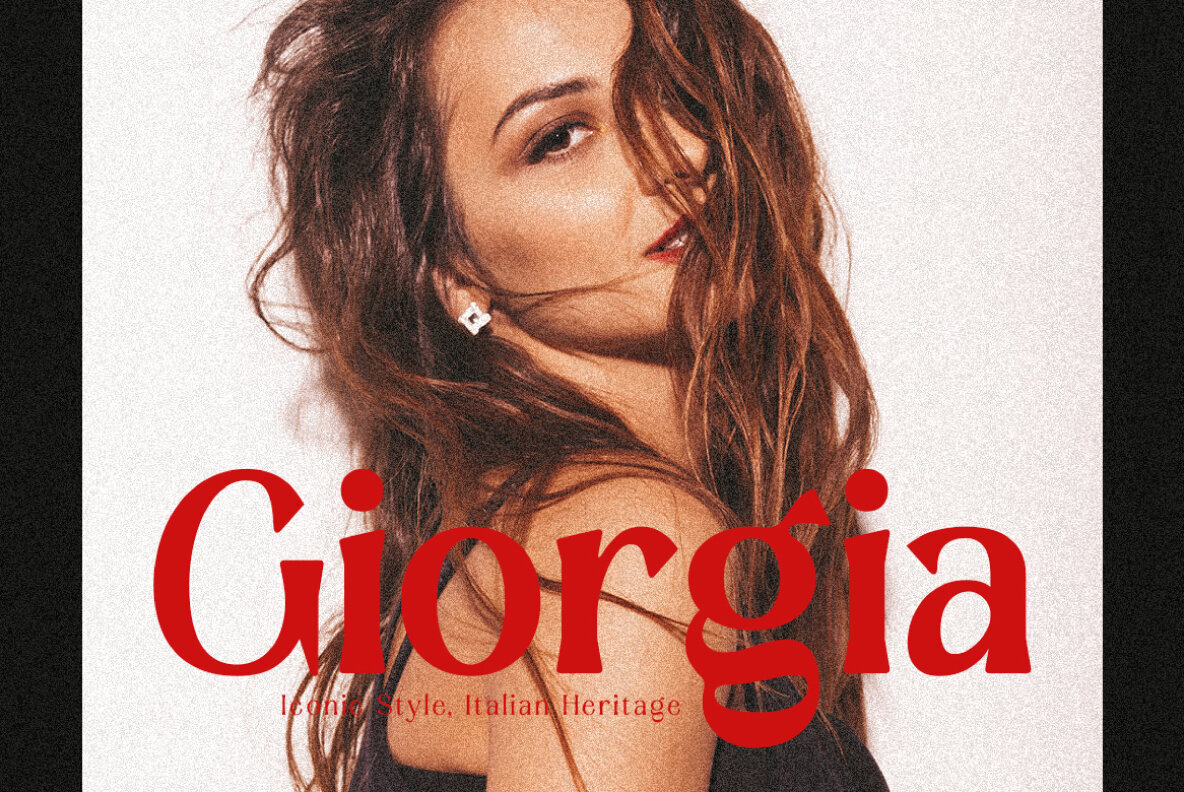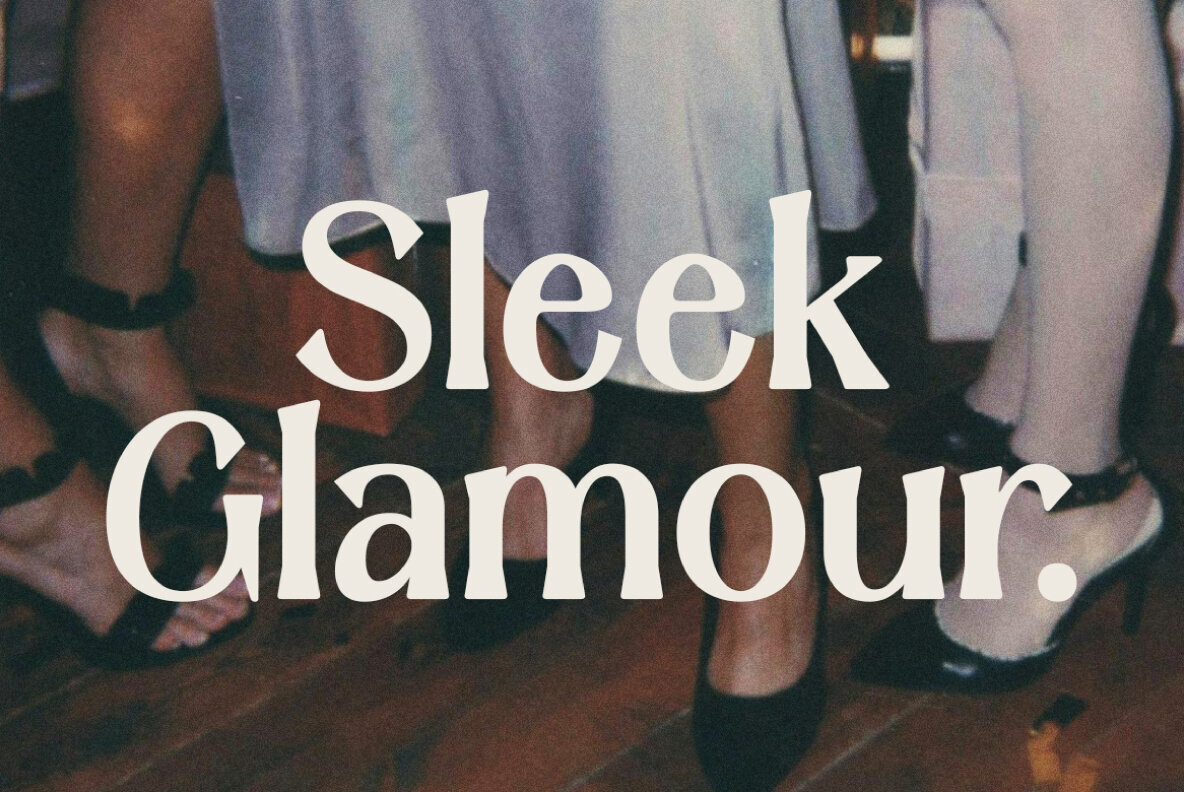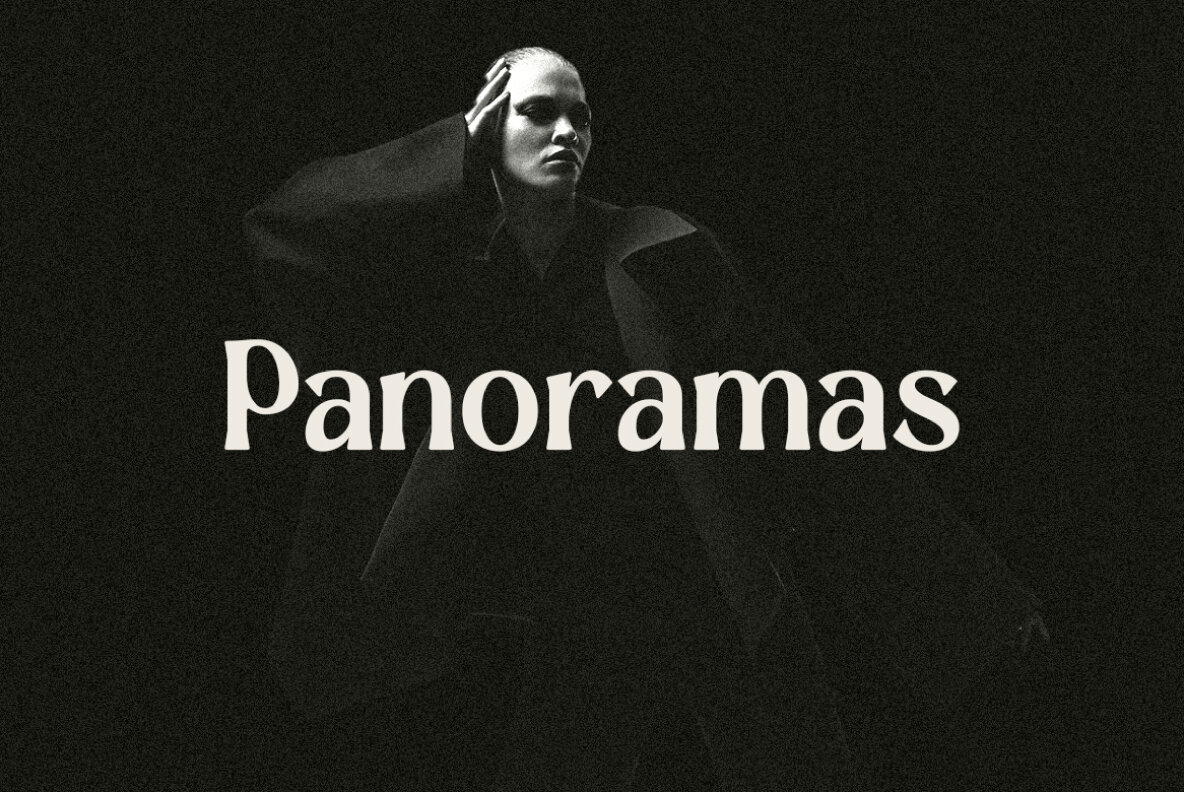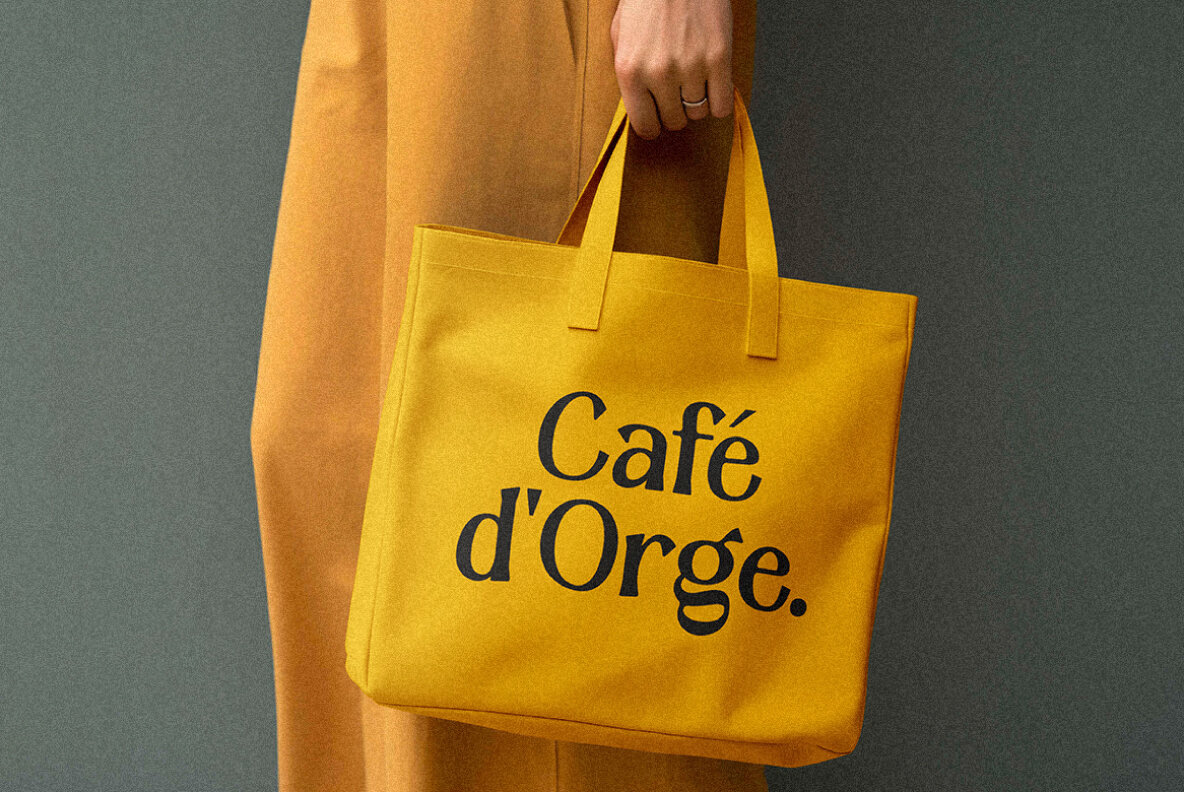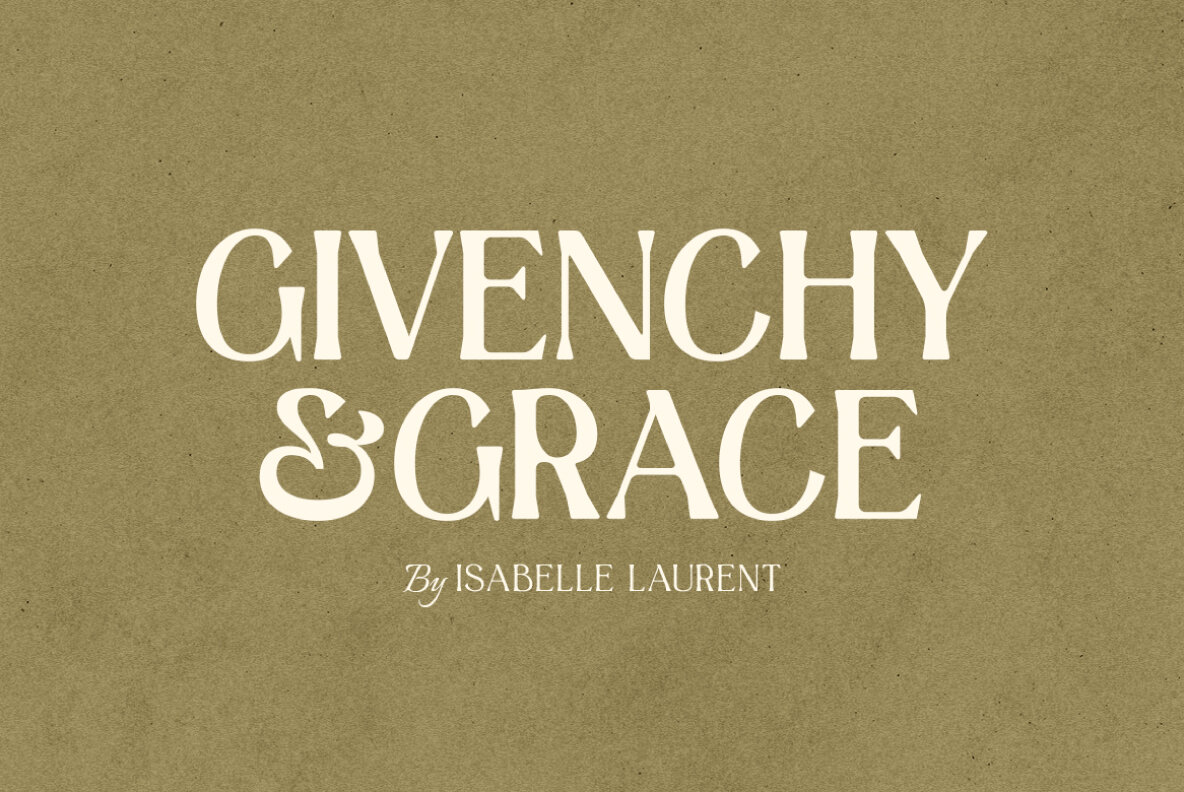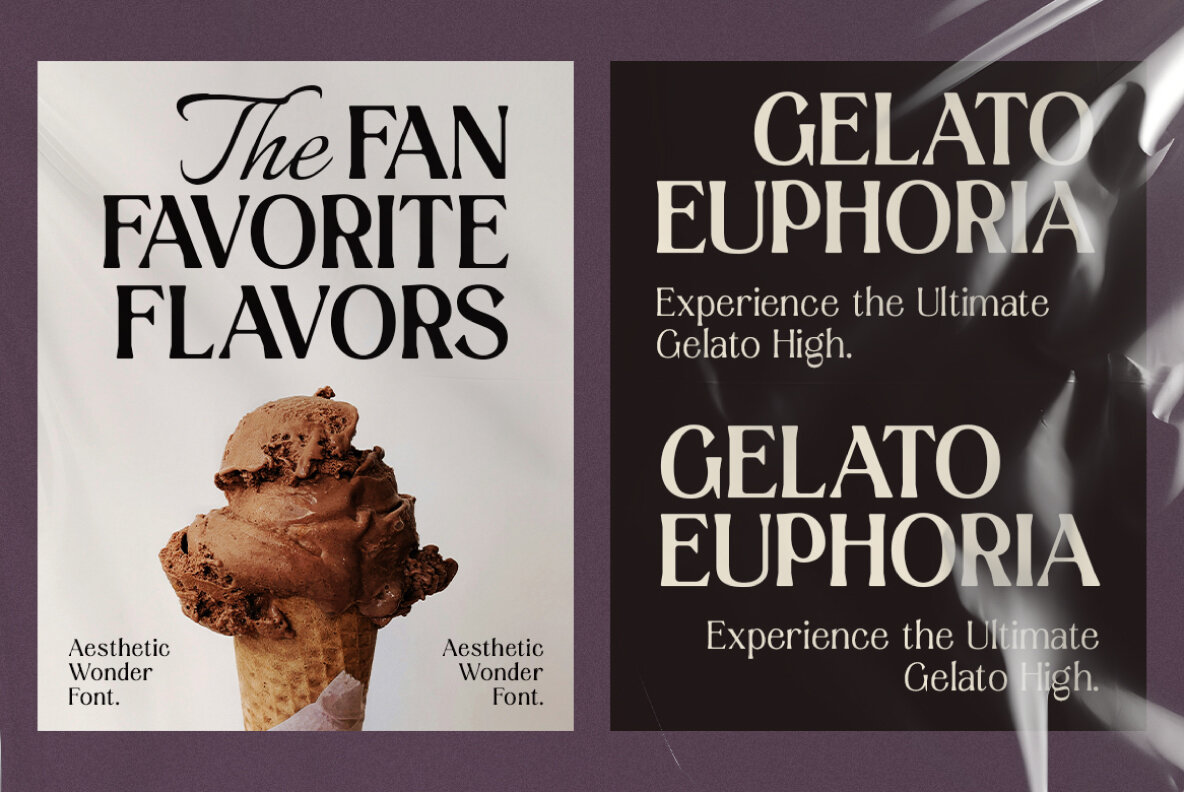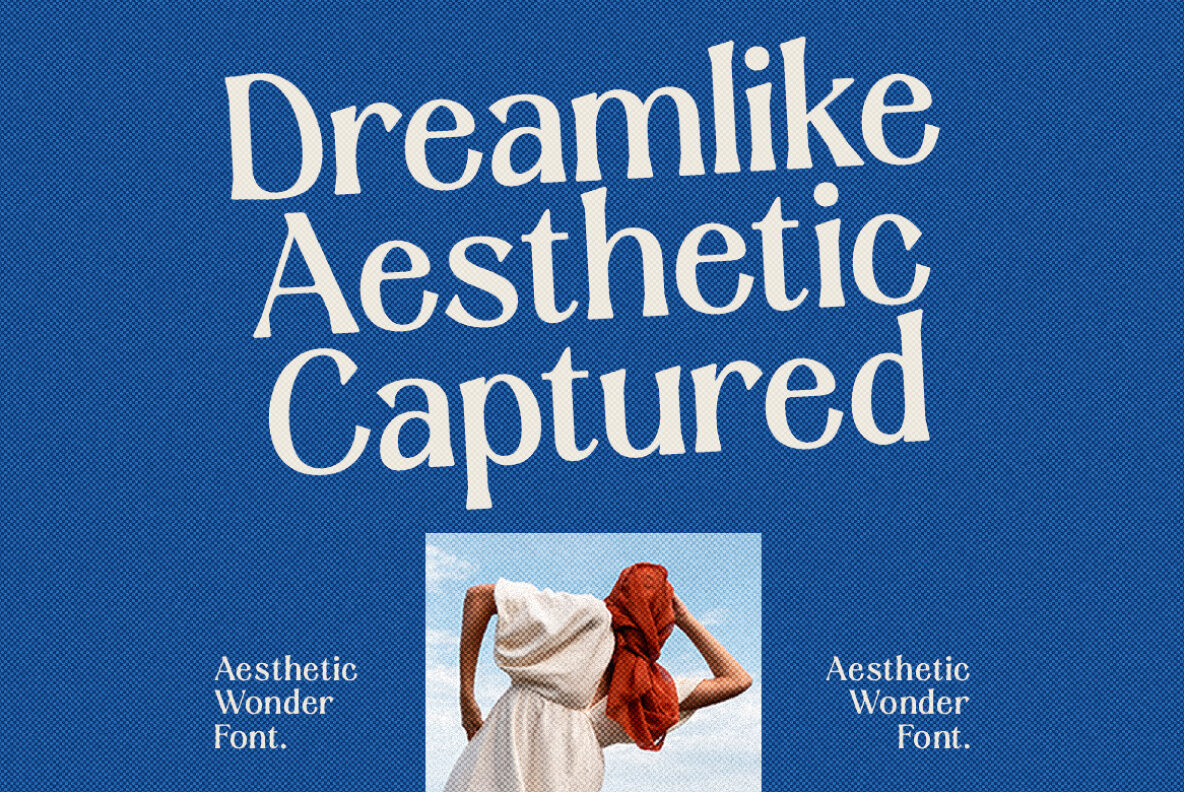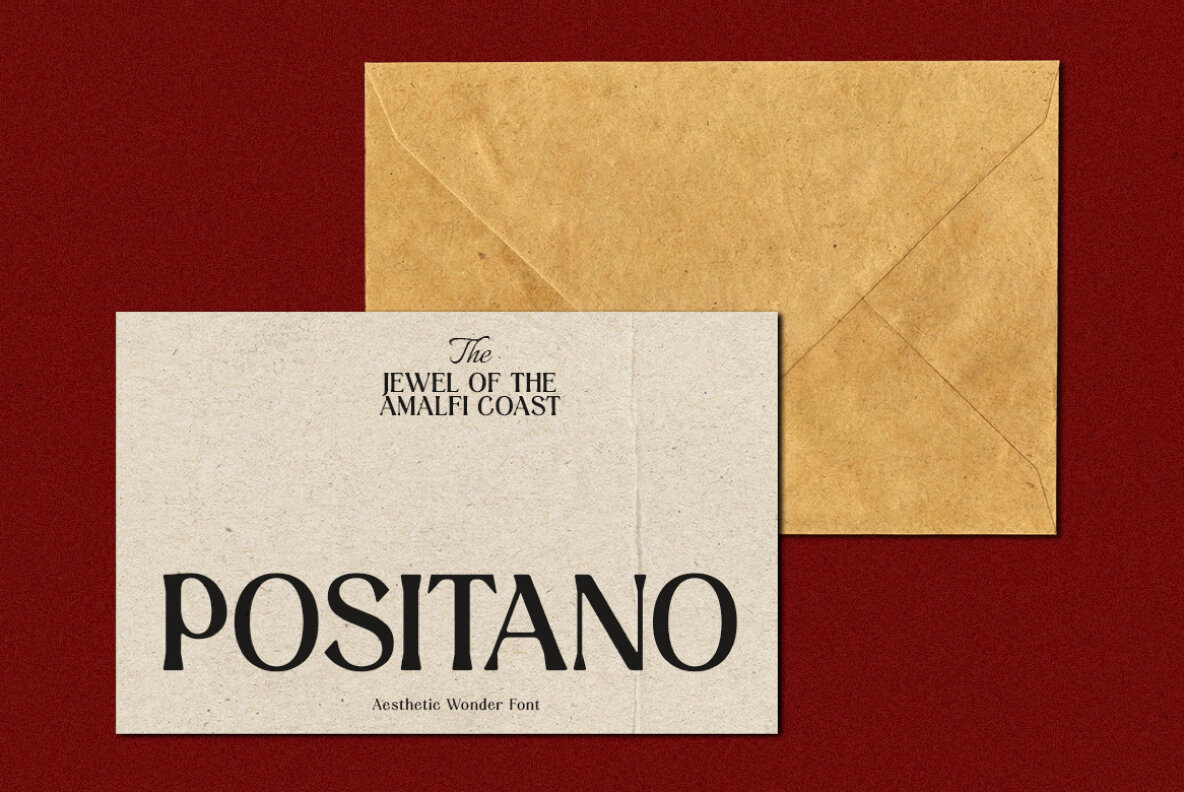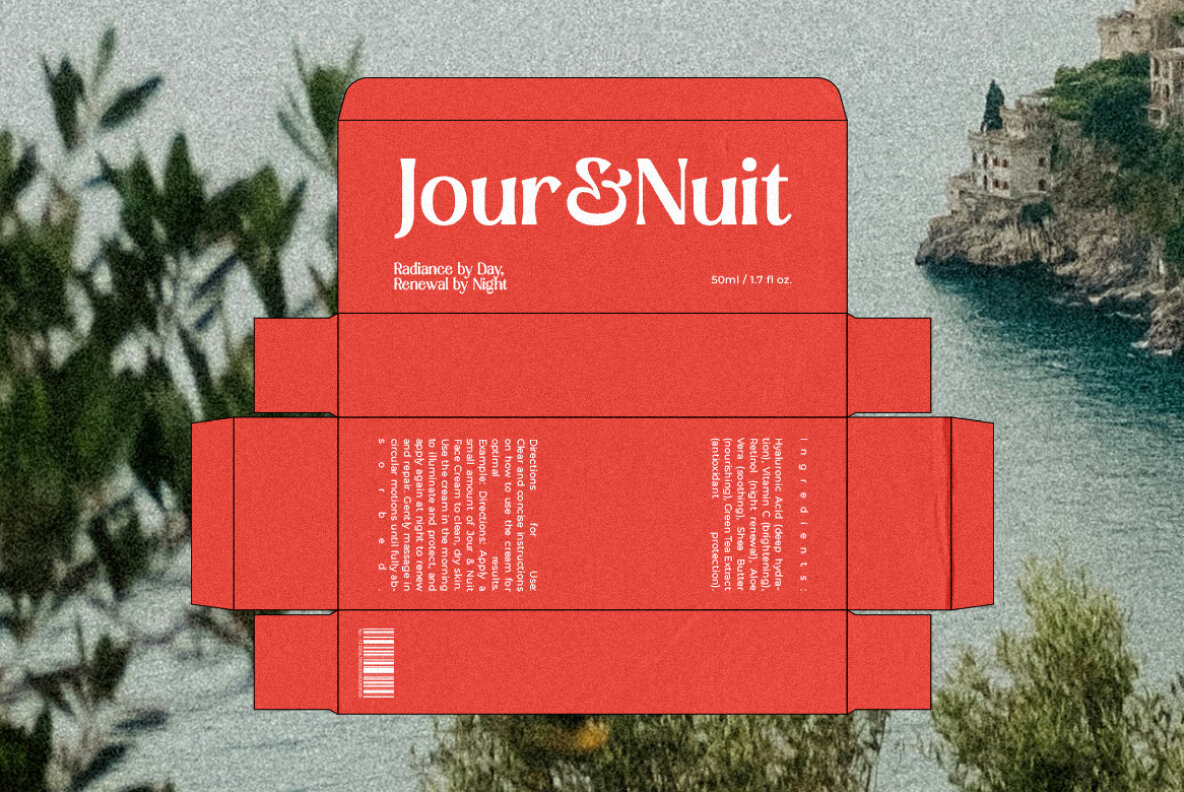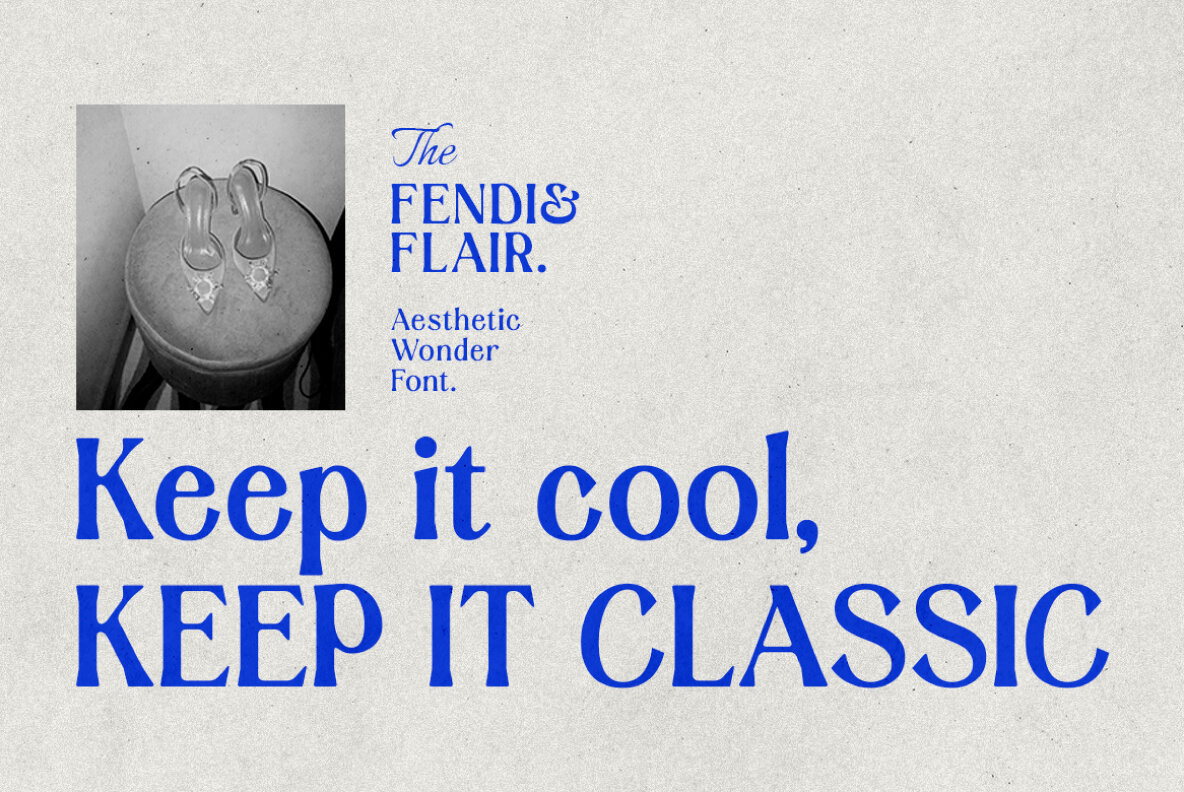
Aesthetic Wonder Font
Aesthetic Wonder Variable
Discover the elegance and sophistication of Aesthetic Wonder, a modern serif font family designed to bring refinement to your design projects. With 8 meticulously crafted weights and the flexibility of variable fonts, Aesthetic Wonder seamlessly blends classic elegance with a contemporary touch. Perfect for branding, logos, posters, and more, this font family offers unparalleled versatility and a timeless aesthetic. Transform your visual identity and leave a lasting impression with Aesthetic Wonder.
This font family includes uppercase, lowercase, numerals, punctuation, and extensive multilingual support covering languages such as Afrikaans, Albanian, Danish, Dutch, English, French, German, Italian, Spanish, and many more. Enhance your designs on a global scale with Aesthetic Wonder’s comprehensive character set, ensuring your message is clear and stylish in multiple languages.